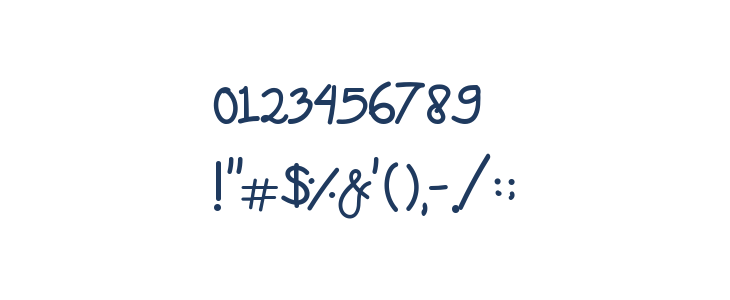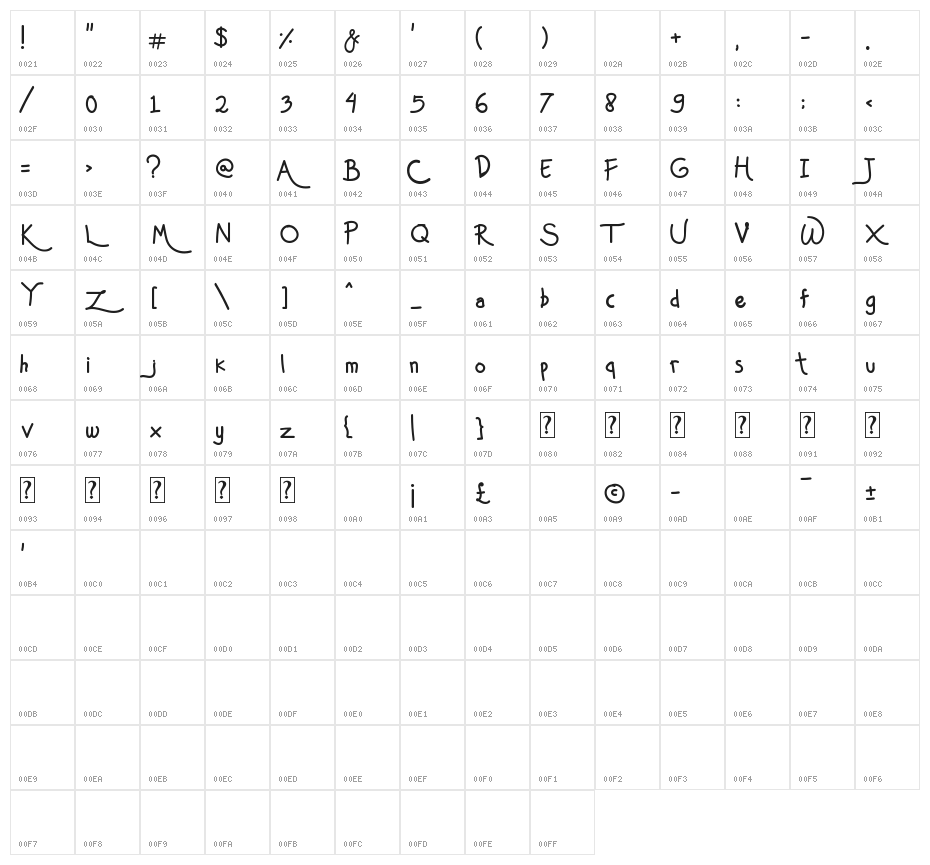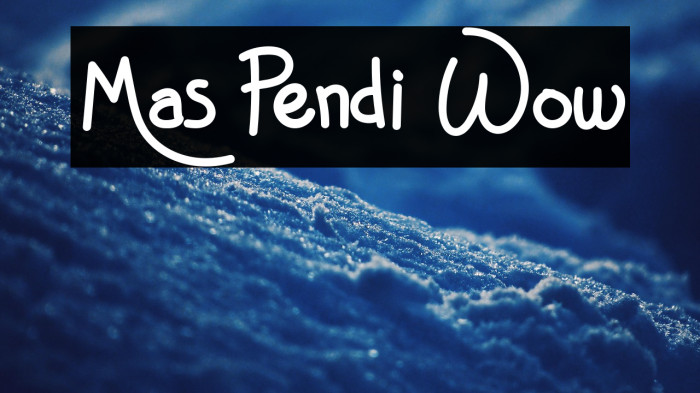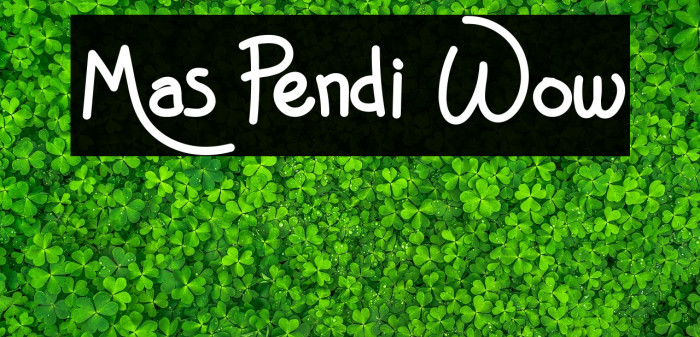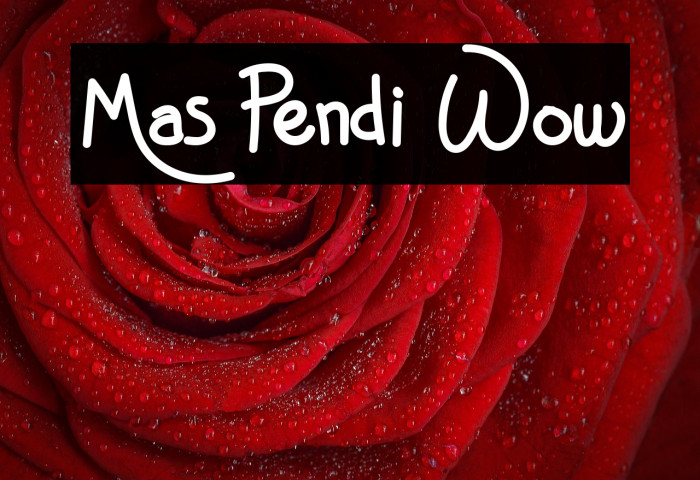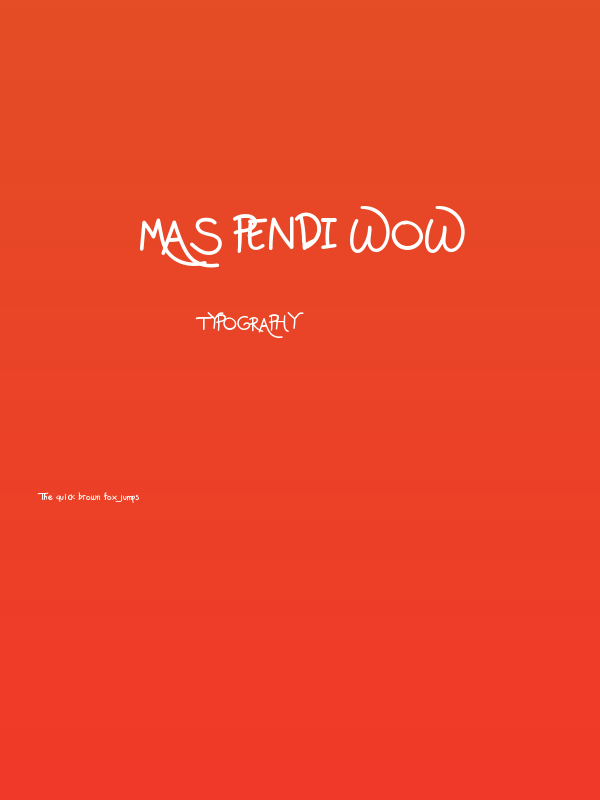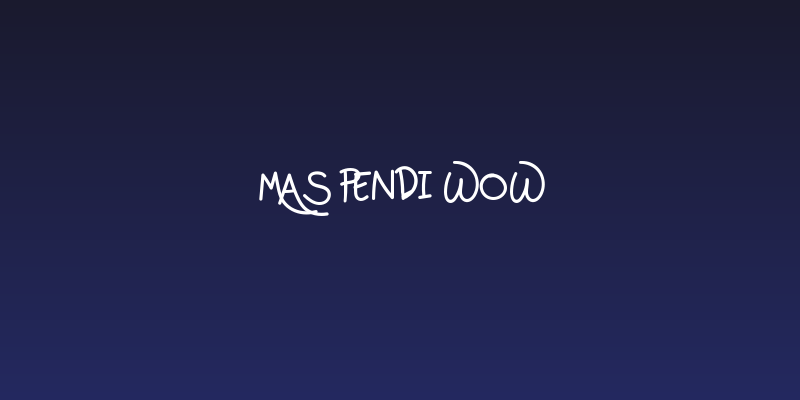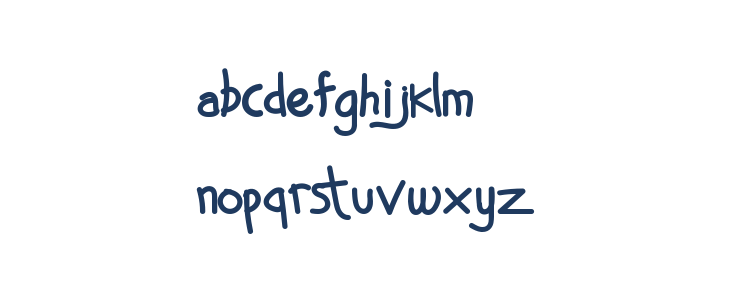
Mas Pendi Wow Font
Mas Pendi Wow Description
This font features a playful and whimsical style, characterized by its flowing, hand-drawn appearance. The uppercase letters are bold and dynamic, with exaggerated curves and loops that give them a sense of movement and energy. The lowercase letters maintain this lively aesthetic, with a slightly more compact form that complements the uppercase set. The numerals are consistent with the overall style, offering a quirky yet legible design. Special characters are integrated seamlessly, maintaining the font's cohesive look. This font's unique personality makes it ideal for projects that require a touch of creativity and fun.